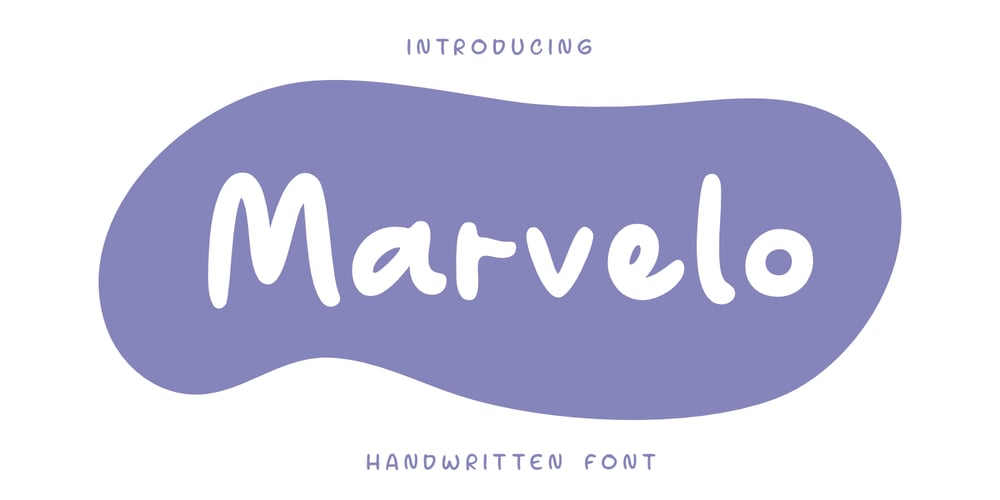
Marvelo
Marvelo font
Marvelo Font Family was designed by Yusliana M Isa and published by Gian Studio. Marvelo contains 1 styles and family package options. Introducing Marvelo is a comic display font that is fun adn clean. Suitable for use on quotes, displays, logos, branding, social media post, advertisements, product packaging, product designs, labels, photography, watermarks, invitations and more.Displayed fonts: Uppercase, Lowercase, Numbers, Symbols, Accents also Multilingual SupportEnjoy the font, feel free to comment or feedback, send me a PM or email.Thank You!